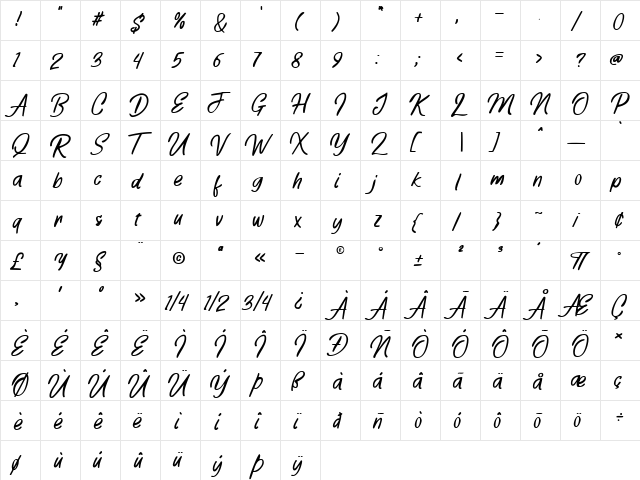
Playmaker Script
| Style | Script |
| Foundry | Vaiminit |
| Designer | Vaiminit |
Design Context for Playmaker Typeface
Playmaker flows with the natural rhythm of handwritten lettering, making it ideal for designs that call for warmth and personal expression.
Font Pairing: Combine Playmaker with a simple geometric sans for maximum contrast — the tension between flowing curves and clean structure is a classic typographic pairing.
Pro Tip: Pair Playmaker with a clean sans-serif for supporting text. The contrast between fluid script and geometric structure creates an elegant typographic hierarchy.